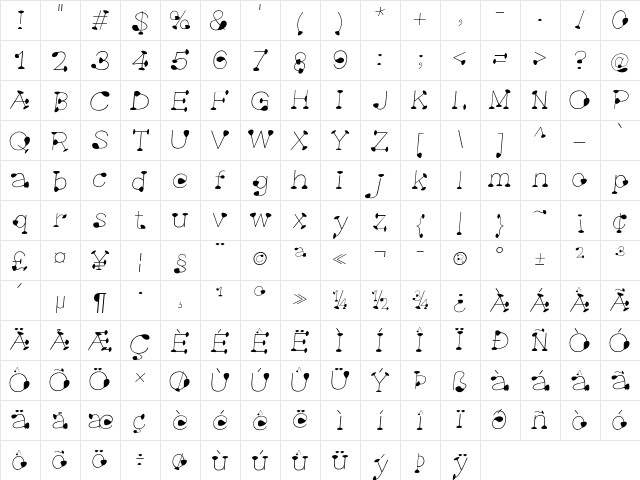
Splotchie Italic Free Font
Splotchie Italic
Design Context for Splotchie
Splotchie is a composed and adaptable typeface that performs quietly and consistently across a wide range of design contexts. The slanted form adds forward momentum and visual energy.
Pro Tip: Use Splotchie for emphasis, pull quotes, and subheadings where its slanted energy can add rhythm to the layout.